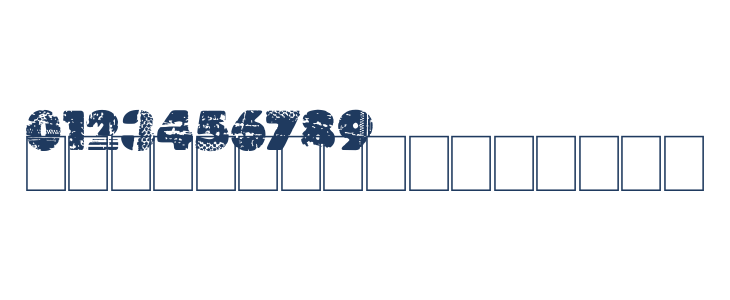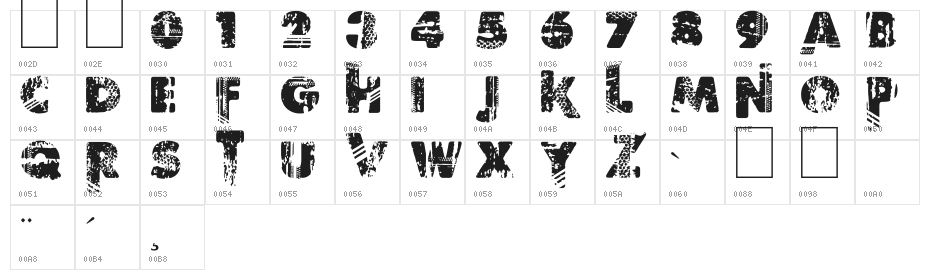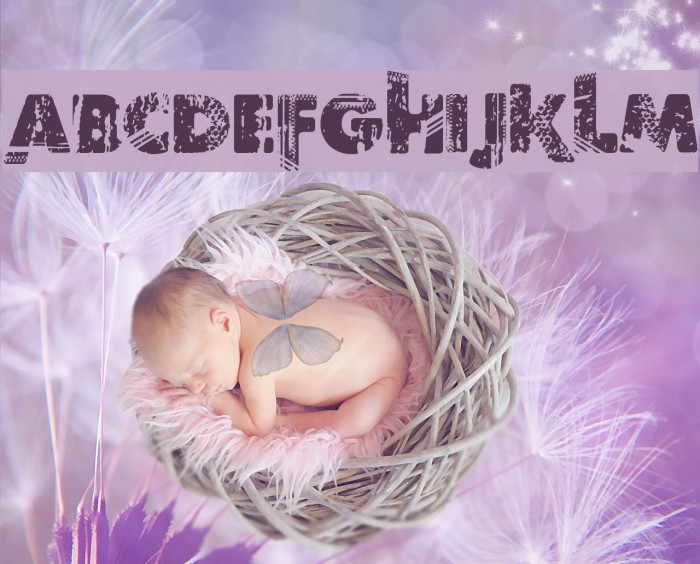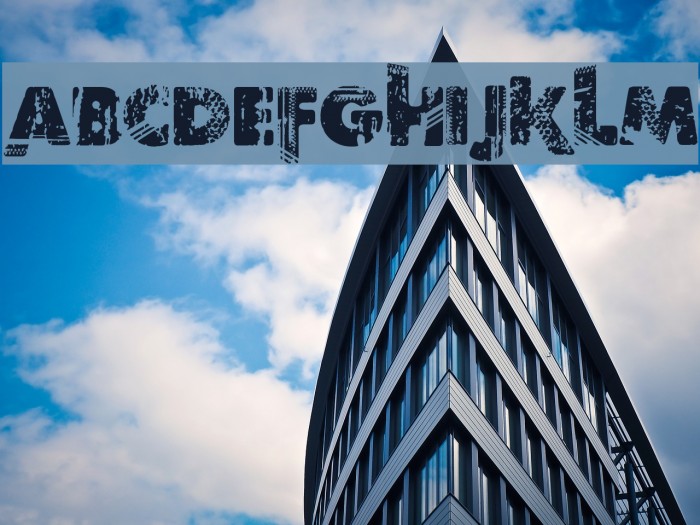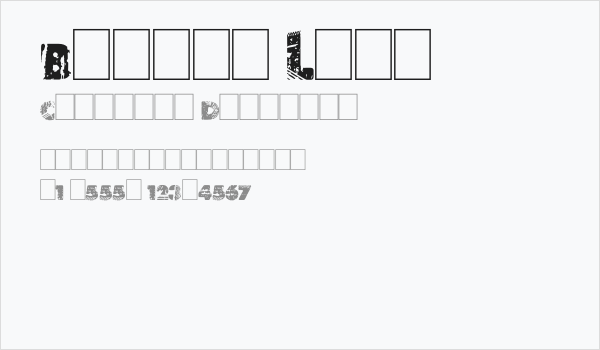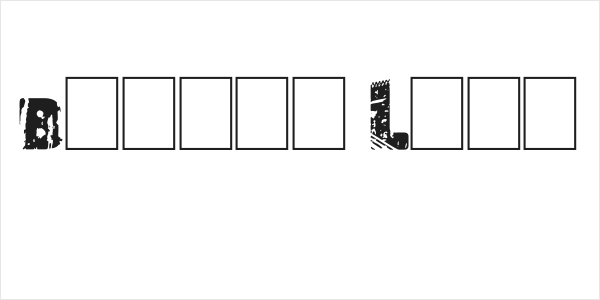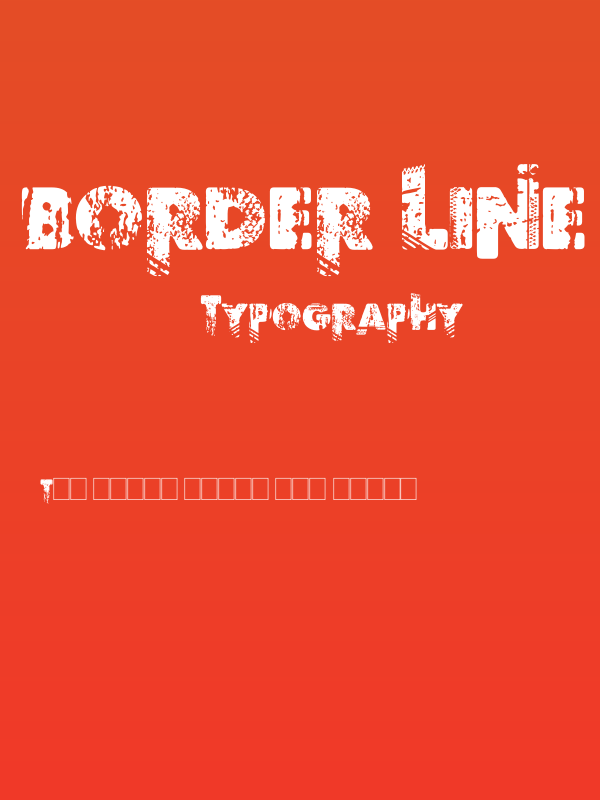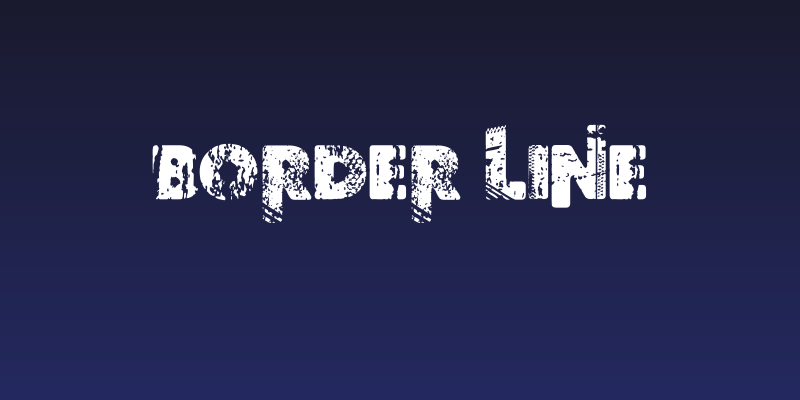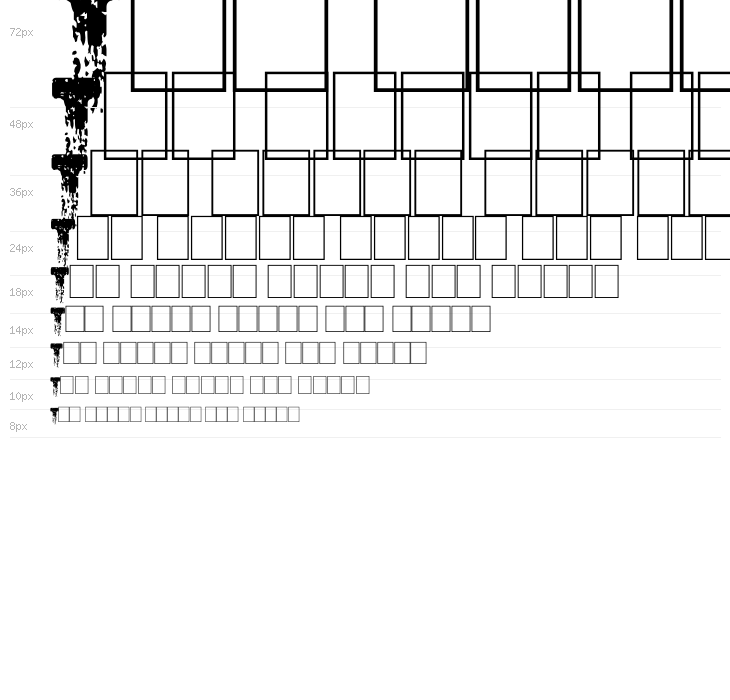
Border Line Font
Border Line Description
This font features a bold and distressed style, characterized by its rough, textured appearance. The letters are heavily stylized with a grunge effect, incorporating scratches and uneven edges that give it a rugged, urban feel. The uppercase and lowercase letters maintain a consistent design, with each character appearing as if it has been weathered or eroded over time. The numbers and special characters follow the same aesthetic, ensuring a cohesive look across all glyphs. This font is ideal for projects that require a bold statement or an edgy, rebellious vibe.
| Overall Style | Grunge, Urban, Edgy |
| Proposed Projects | Ideal for album covers, posters, streetwear branding, or any project needing an edgy, urban aesthetic. |